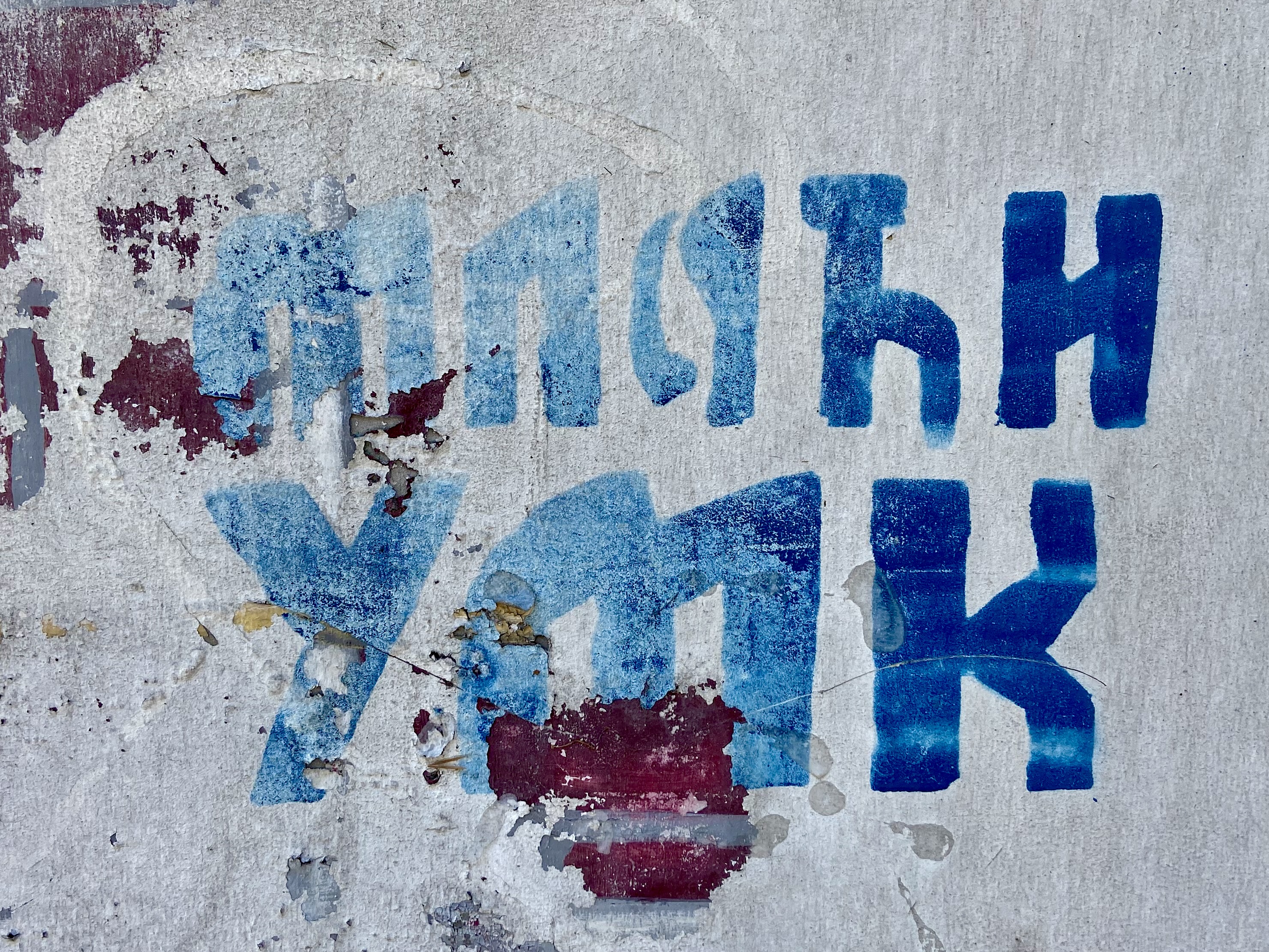
Mlađi UMK
Млађи УМК*
Junior UMK
* The letter ћ is used incorrectly here (or maybe just drawn improperly) - it should be ђ instead. Thanks to Tanja Milovanović-Rakonjac for the correction.